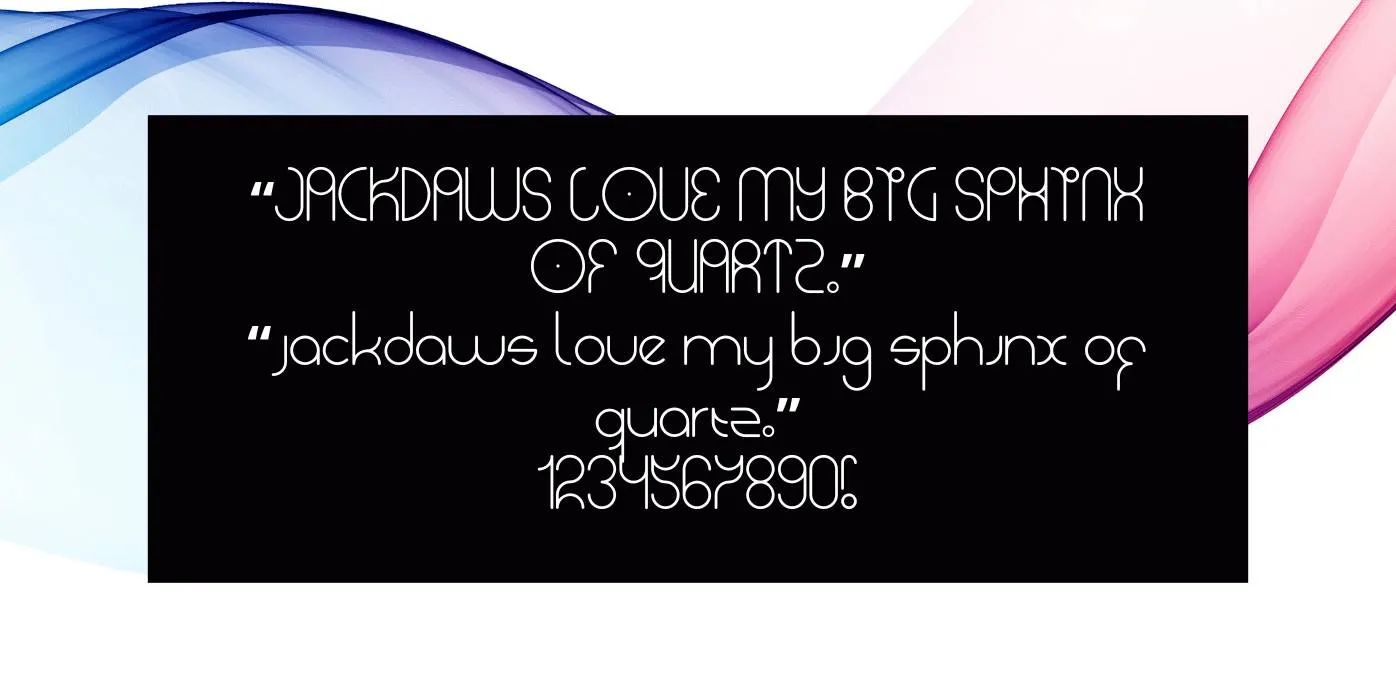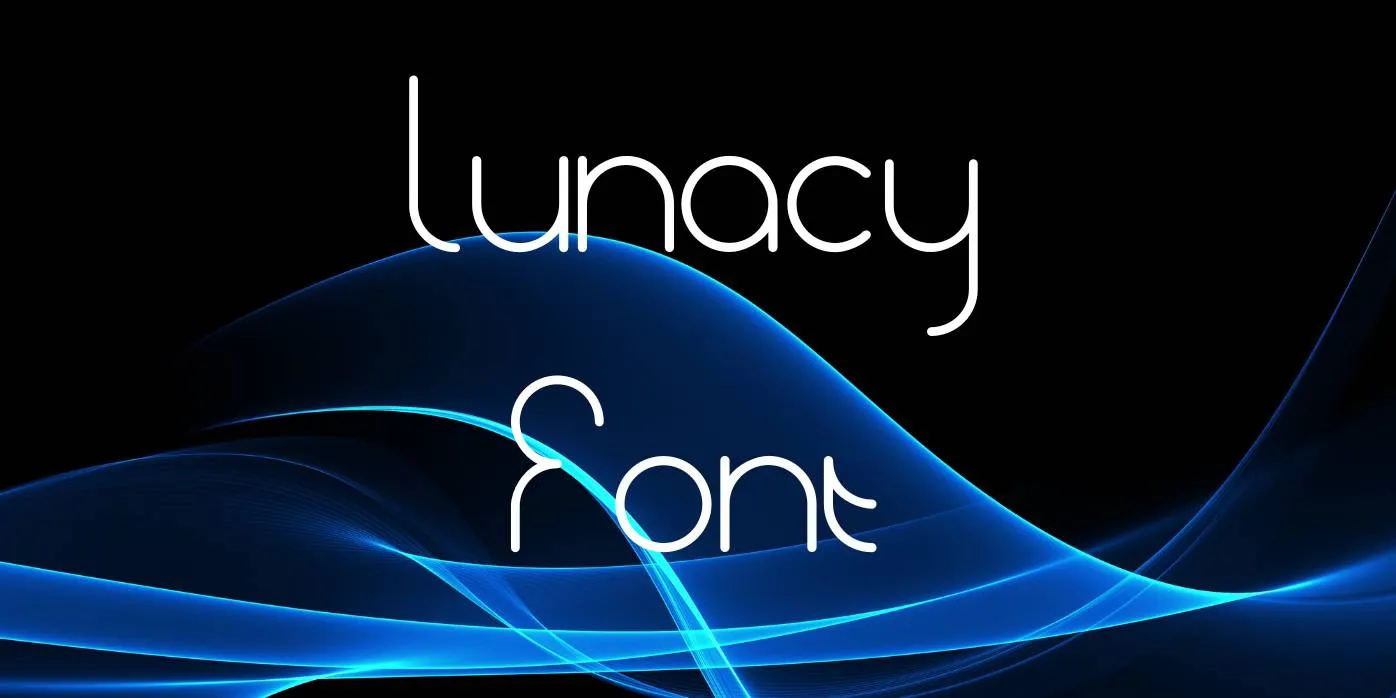
Lunacy Font
Today, I am going to introduce a fancy type of texture. Lunacy Font is a fancy font. Kasper Gant is the creator of this typeface. There is only one style for this texture.
There are 70 stunning glyphs for this typeface. The characters of this typeface are thin, thick, big, and less readable. The online generator tool for this texture is also available. By using this tool, you can convert your simple text into the text of this typeface.